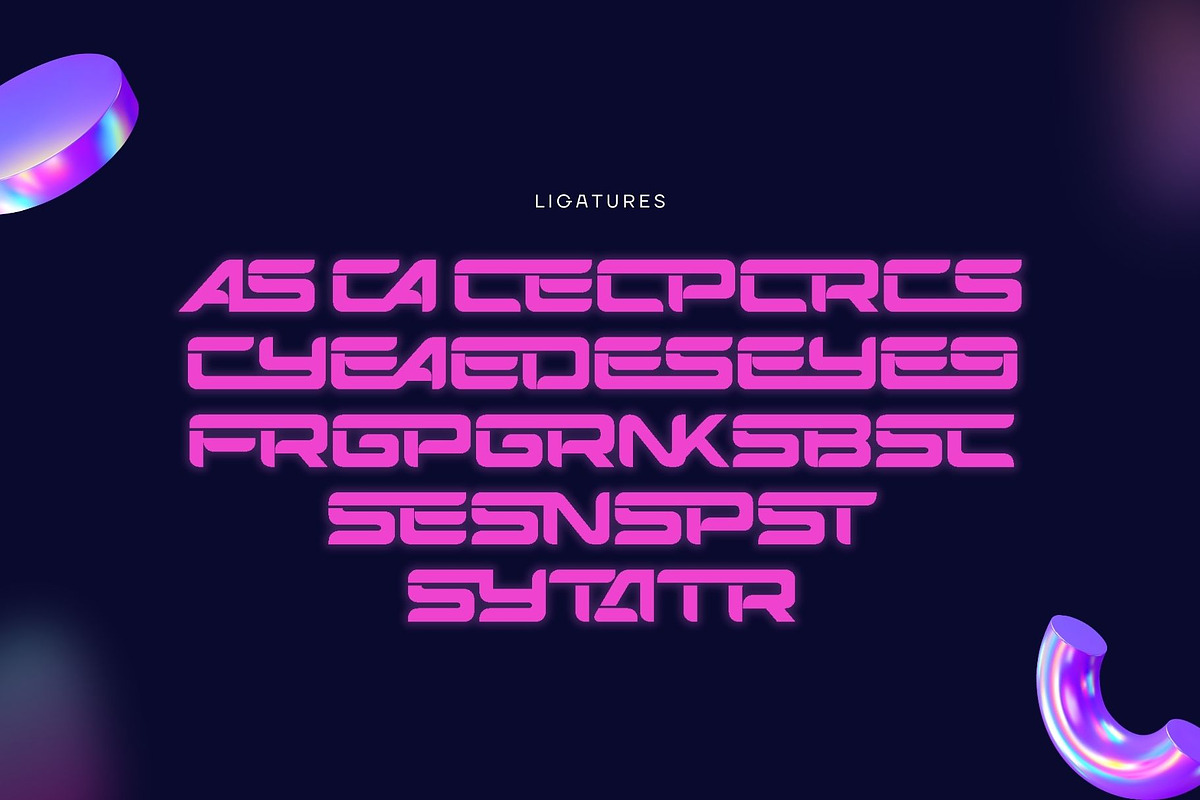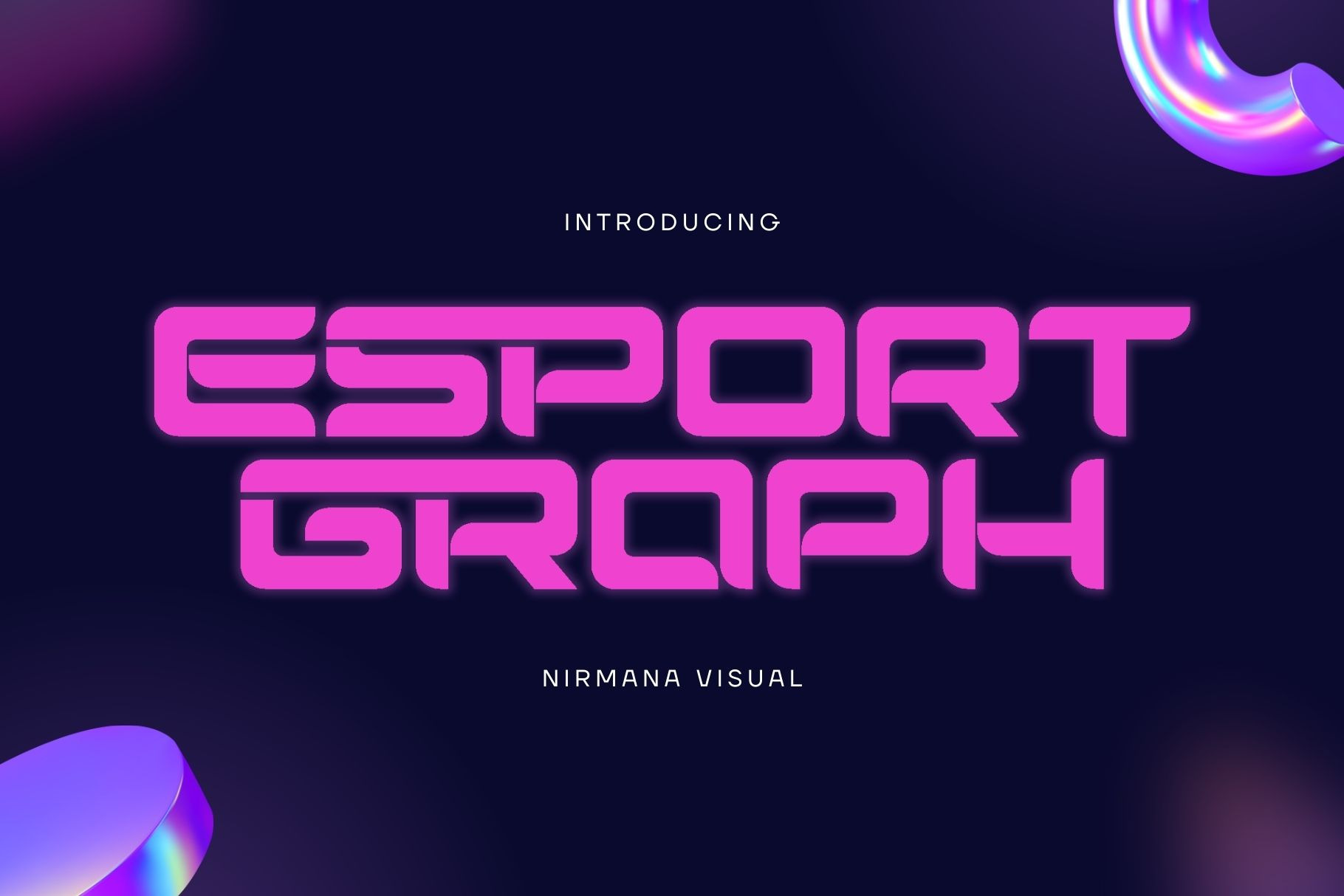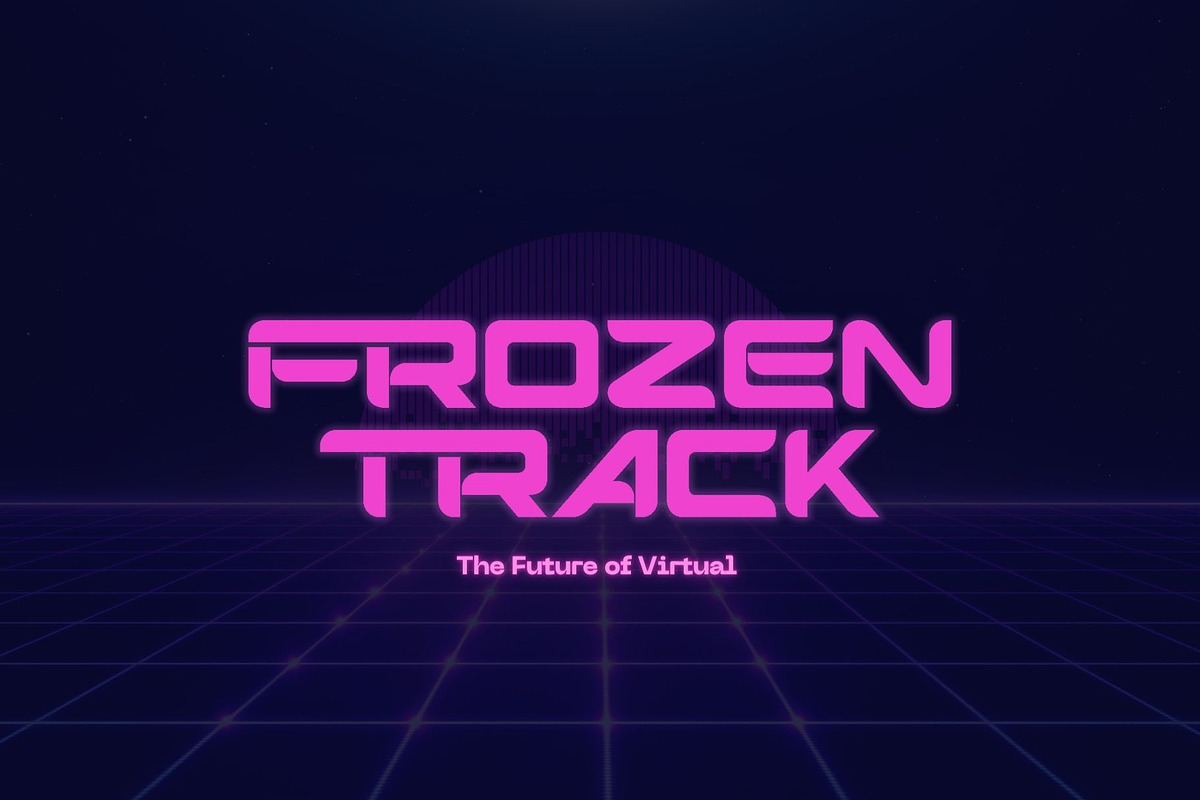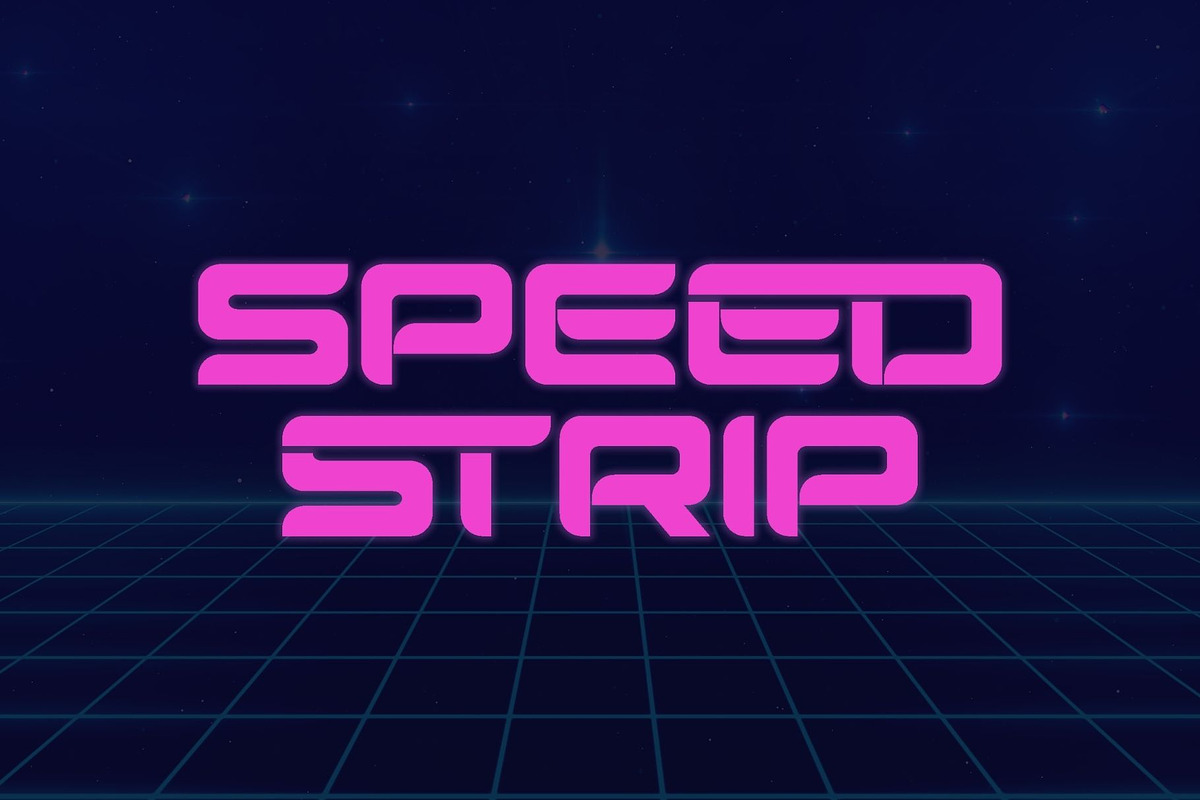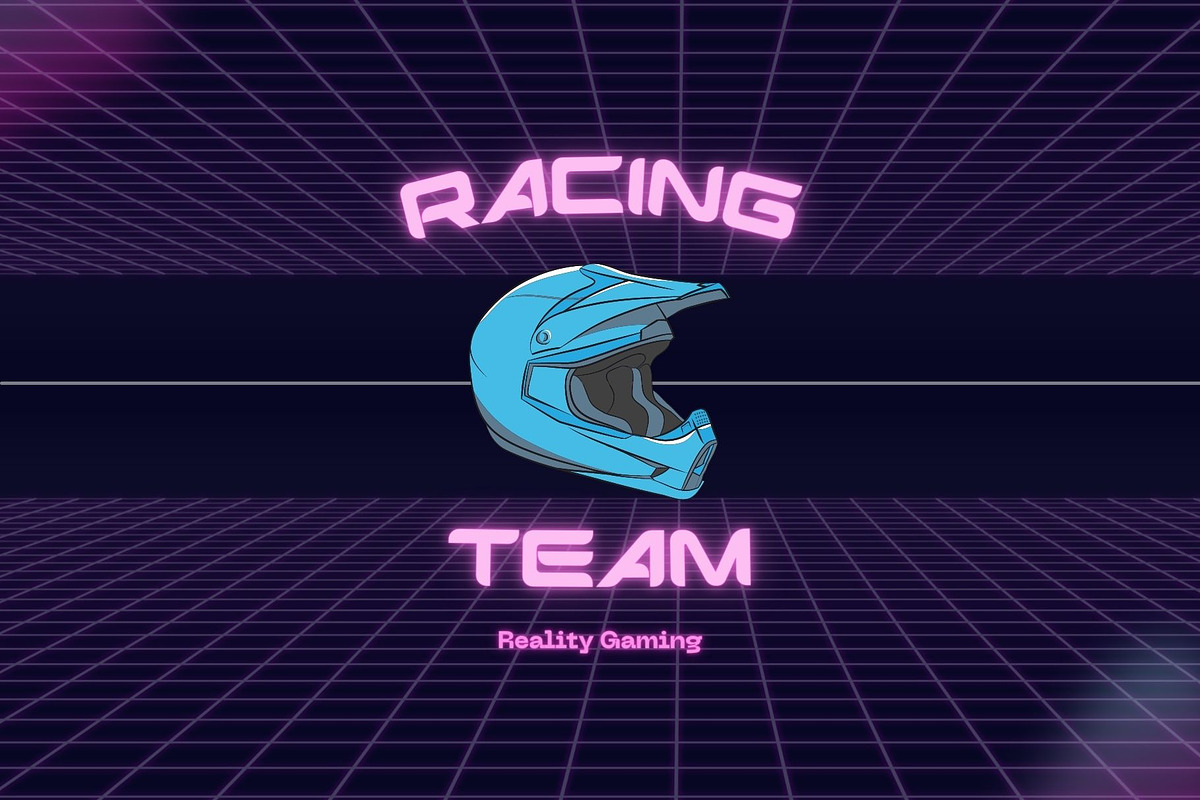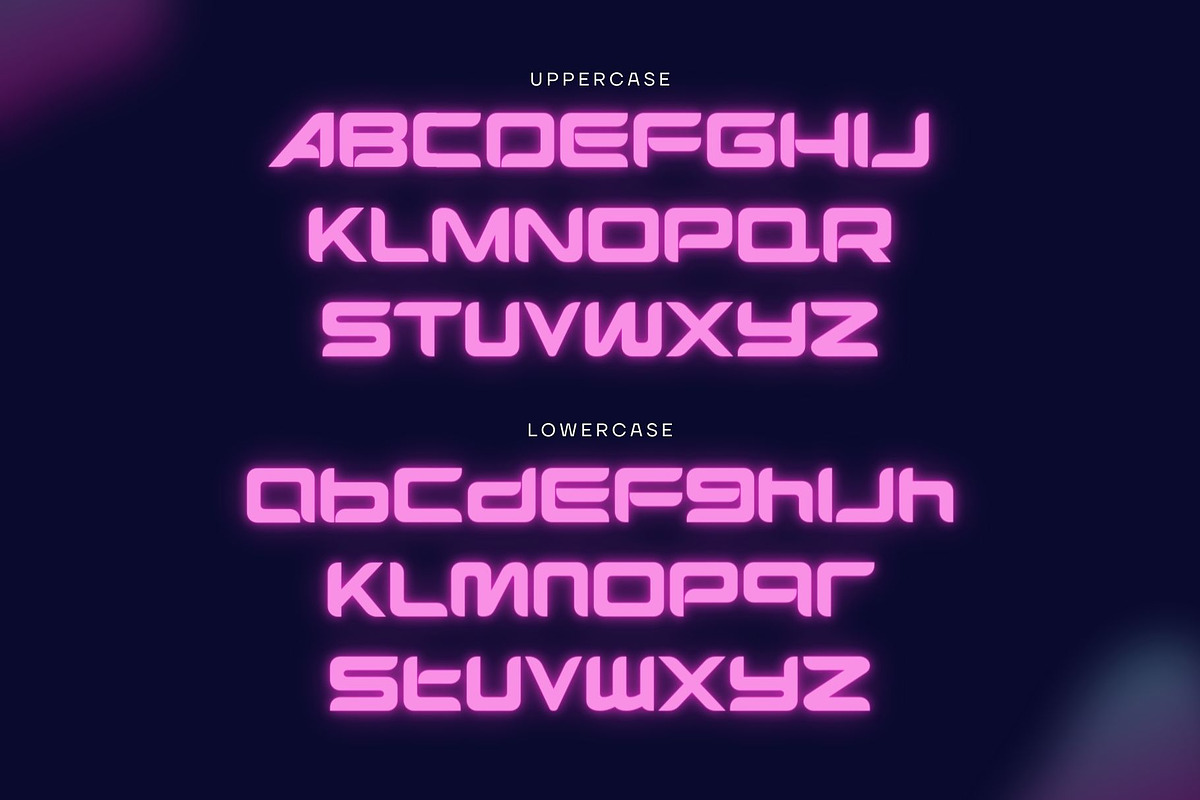
Esport Graph - Logo Font
Inspired by Esport style,
Esprot Graph offers Futuristic typographic harmony for a diversity of design projects, including logos & branding, social media posts, advertisements & product designs.